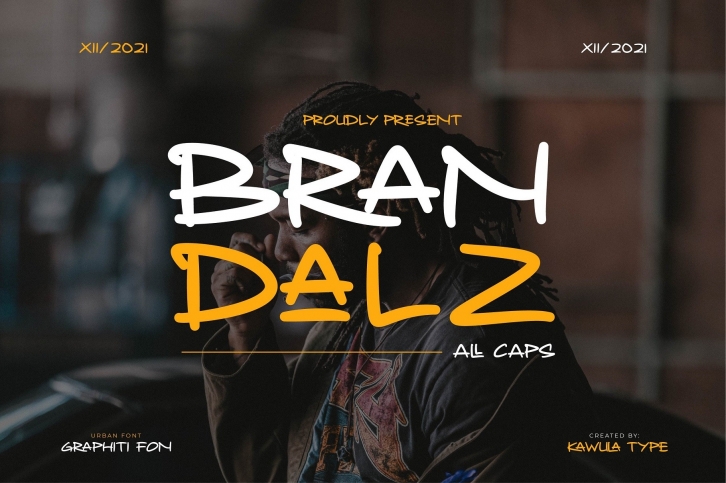
Brandalz is a cool graffiti display font. It is suitable for various such as ads, wedding designs, social media posts, product packaging, posters, flyers, and more. This font is PUA encoded which means you can access all of the glyphs and swashes with ease!Â